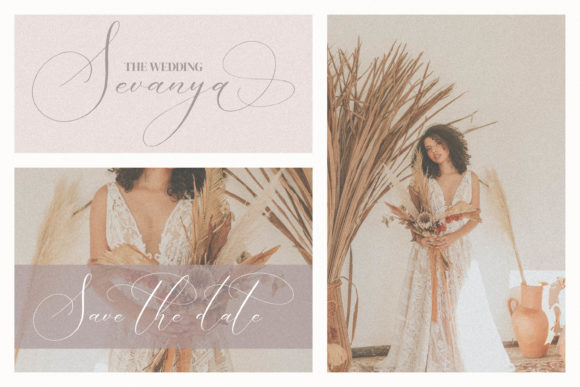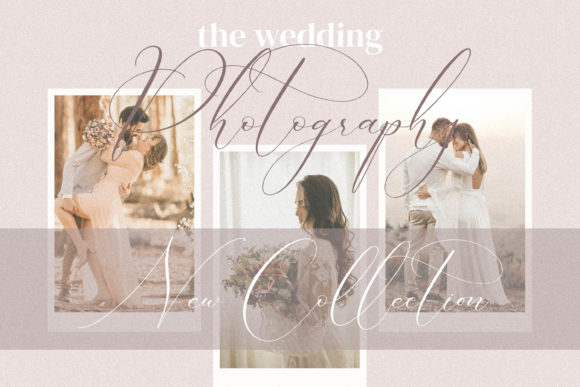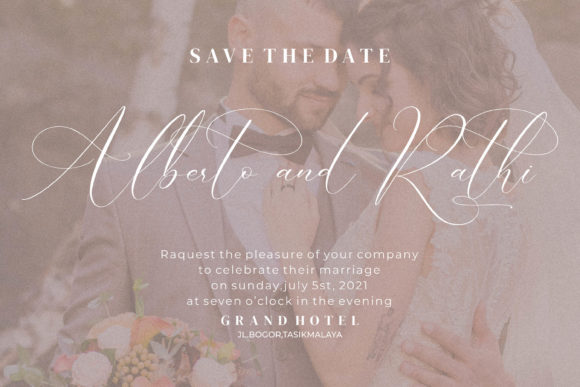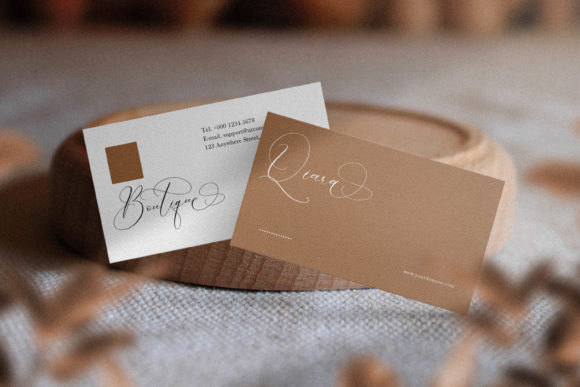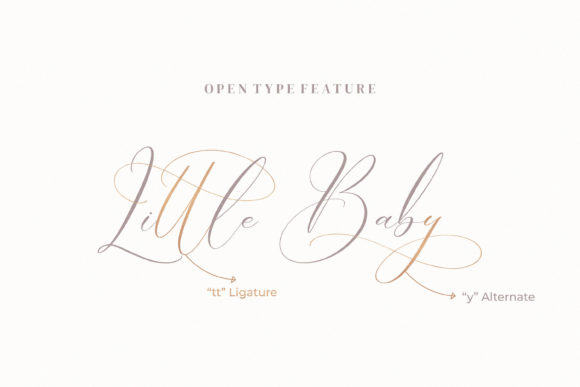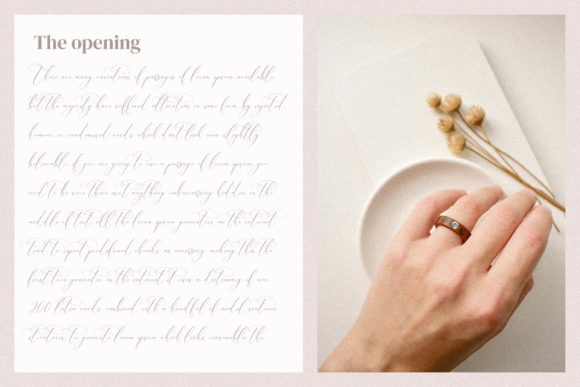
The Elusive Font: A Designer’s Love Affair with Boutique Qiara
I’ll never forget the frustration of working on a project, hours pouring into every detail, only to hit a roadblock: finding the perfect font. My client wanted something elegant, something that screamed sophistication and whimsy at the same time. And then, like a mirage on a desert highway, I stumbled upon Boutique Qiara.
This thin lettered and graceful script font stole my heart with its ravishing style. I knew right then and there that I had to share it with fellow designers, crafters, and creative hobbyists. So, let’s dive into what makes Boutique Qiara a gem and how you can make the most of it in your designs.
An Honest Review of Boutique Qiara
• ✨ PUA Encoding: Boutique Qiara is PUA encoded, which means accessing all glyphs and swashes is a breeze. No more tedious searching for the perfect alternate character!
• ✅ Elegant and Versatile: This font is perfect for a wide range of projects, from wedding invitations to branding and packaging.
• 💫 Thin and Graceful: The letters are slender and refined, adding a touch of sophistication to any design.
While Boutique Qiara is a stunning font, there are a few things to keep in mind:
• ⚠️ Legibility at Small Sizes: As with many script fonts, Boutique Qiara may lose legibility at very small sizes. Make sure to test it at different sizes to ensure it works for your project.
• 🤔 Pairing with Other Fonts: Due to its elegant nature, Boutique Qiara can be a bit particular about font pairings. Experiment with different combinations to find the perfect match.
The Designer Inspiration Behind Boutique Qiara
The story behind Boutique Qiara’s creation is as elegant as the font itself. Designed with the intention of capturing the essence of high-end fashion and luxury, the font’s creator aimed to produce a typeface that exudes sophistication and whimsy. While the actual designer remains a mystery, it’s clear that their goal was to craft a font that would make designers swoon.